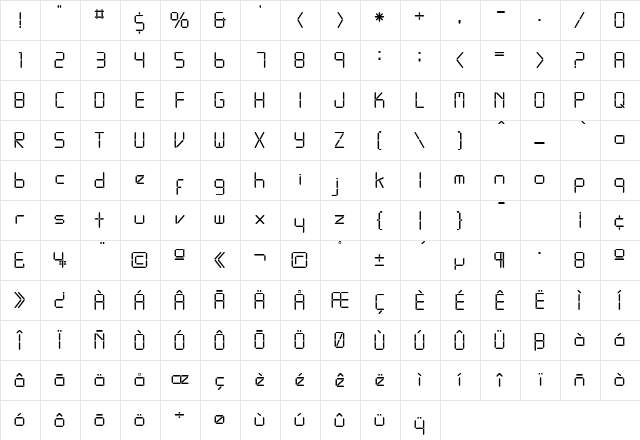
LEDSSK Regular
Design Context for LEDSSK Typeface
LEDSSK takes a measured approach to typography — its balanced proportions and neutral character make it a reliable workhorse for both digital and print work.